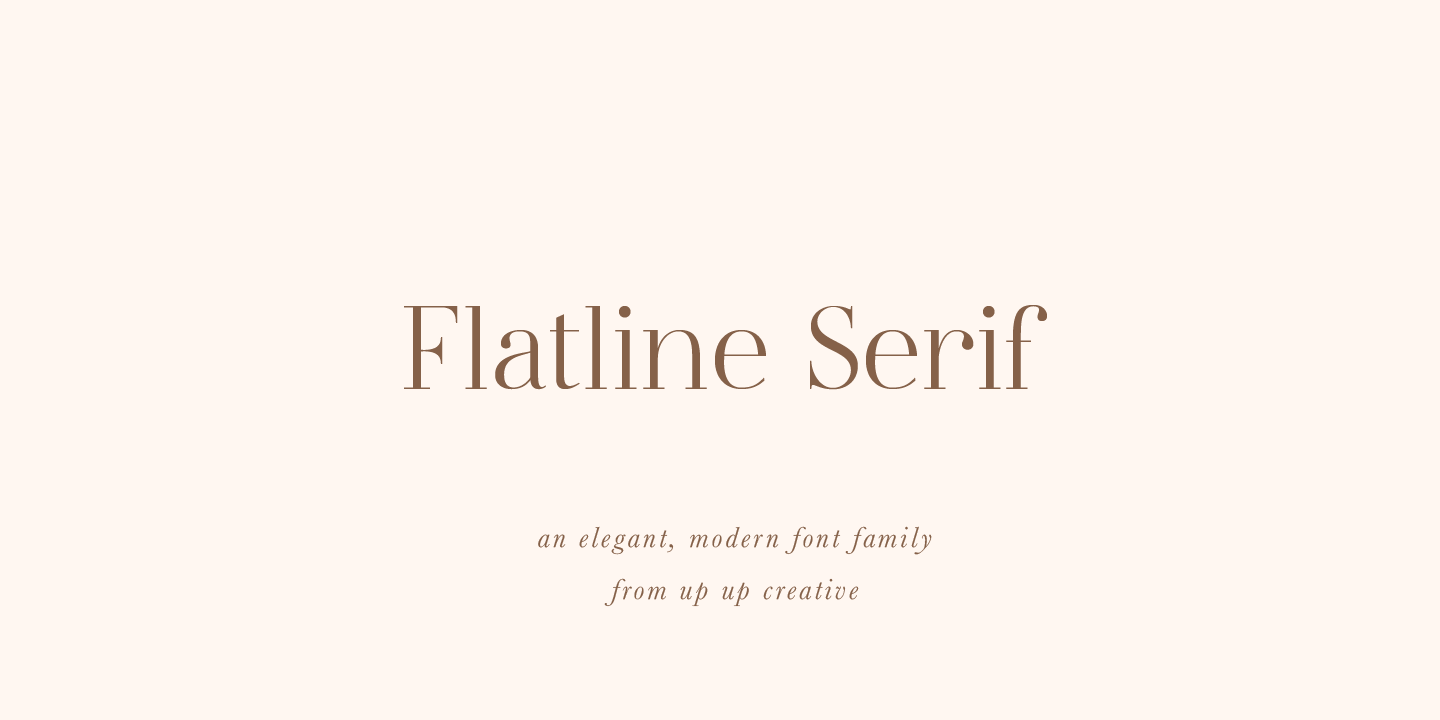
Flatline Serif Font is a distinctive and often unconventional typeface, perfect for designs that aim to convey a sense of modern edginess, abstract style, or a deliberate break from traditional forms. Its unique character, possibly featuring unusually flattened elements or stark, minimalist serifs, makes it an excellent choice for avant-garde branding, cutting-edge magazine layouts, electronic music posters, and digital art installations. Imagine it gracing the title screen of a modern video game, providing a stark visual for a tech startup's marketing materials, or adding an unyielding presence to urban streetwear designs. This font is also superb for experimental web design, album covers that push boundaries, and any project where a raw, impactful, and thought-provoking visual identity is key. It doesn't just display text; it asserts a bold, contemporary statement.
What makes Flatline Serif Font so exciting is its audacious design that challenges conventional typographic norms. It embraces unusual proportions or unique structural elements to create a truly distinctive visual language that commands attention. This distinctive character makes it a fantastic choice for designers looking to infuse their projects with a sense of rebellion, innovation, and a powerful, unconventional beauty. It's a font that speaks with an uncompromising voice, making it ideal for brands and content creators who want to make a strong, memorable artistic statement that stands out from the crowd. Its bold and unique appeal can make any message feel more urgent and undeniably impactful.
The Flatline Serif Font family, given its often artistic and specialized design, might not feature the extensive weight variations seen in more traditional typefaces. However, it typically offers different styles or complementary elements that enhance its unique aesthetic and provide creative flexibility. You might find variations such as:
Flatline Serif Regular (the primary, distinctive style)
Flatline Serif Bold (for an even more dominant presence)
Flatline Serif Italic (if designed with a slanted version)
Flatline Serif Distorted (if designed with a glitch or deconstructed effect)
Flatline Serif Outline (for a different visual emphasis)